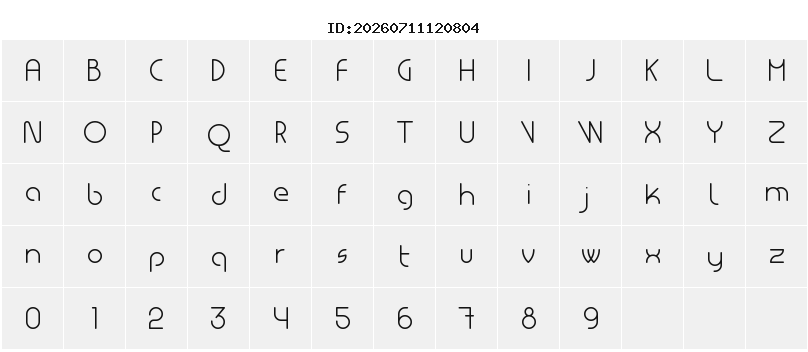
• Font Name: Masiode Rounded
• Font Style: Light
• Designer: Khiro
• Description: Masiode is a sans-serif typeface available in two weights: light and regular. Masiode also has rounded version, these two versions had been submited on dafont.com only! Masiode family is free for both personal and commercial use. ENJOY!
Masiode Rounded.ttf is a modern, elegant sans-serif font designed for ultimate readability and visual harmony. Perfect for branding, headlines, web design, and print materials.